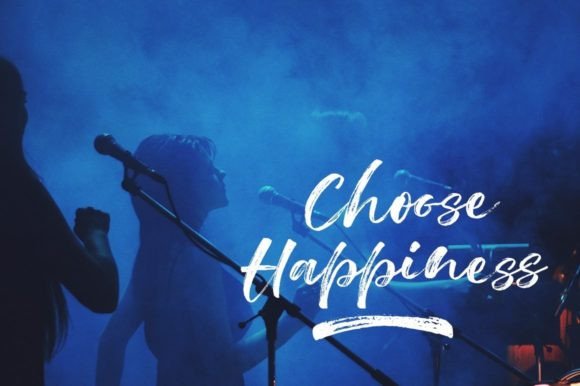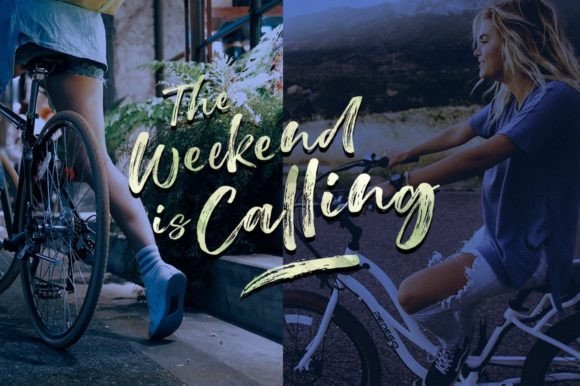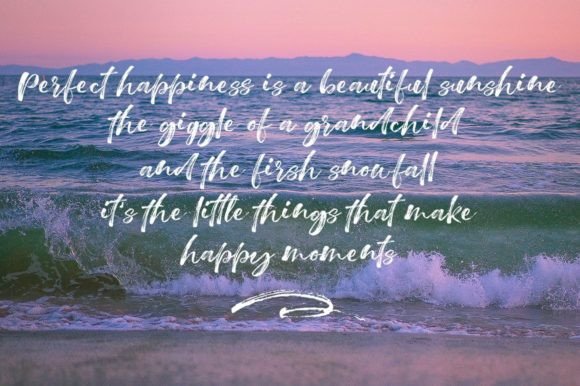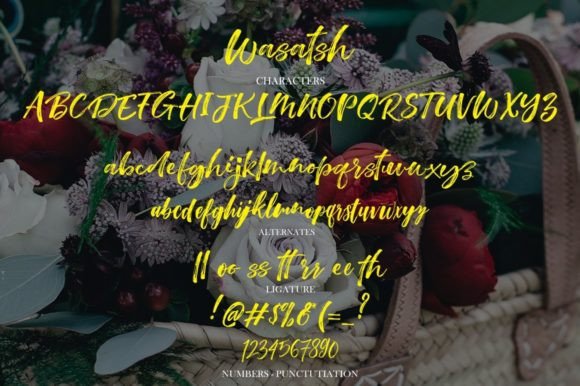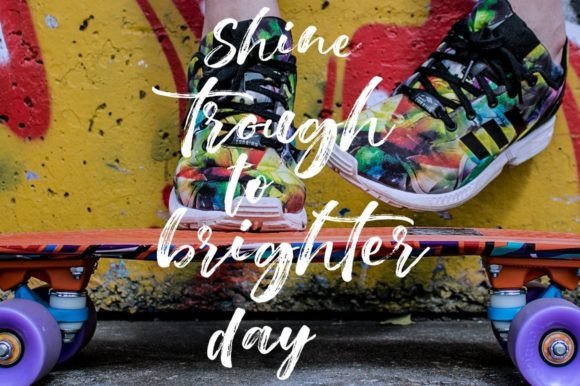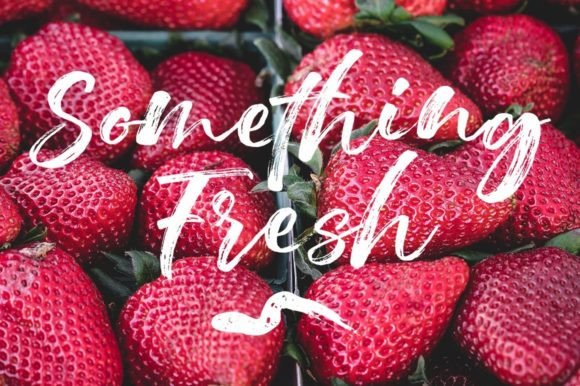
Wasatsh Font
About Wasatsh Font
“Wasatsh” is more than just a font; it’s a cool and modern handwritten brush font designed to bring a contemporary and stylish vibe to your projects. Its casual yet sophisticated appearance makes it a versatile choice for a variety of design applications. Adding “Wasatsh” confidently to your projects promises results that you’ll love.
The cool and modern qualities of “Wasatsh” are immediately apparent in its handwritten brush design. The font carries a sense of fluidity and dynamism, contributing to an overall aesthetic that is both casual and stylish. This makes it an ideal choice for projects that demand a modern and confident touch.
The versatility of “Wasatsh” becomes evident in its adaptability to various design contexts. Whether it’s enhancing the visual appeal of digital graphics, adding a stylish touch to social media posts, or making headlines stand out, this font confidently fits into diverse creative projects.
Imagine it in branding, where “Wasatsh” can contribute to a fresh and contemporary visual identity. Picture it in presentations or on promotional materials, making your message more engaging and dynamic. “Wasatsh” becomes a font that not only looks cool but also adds a modern edge to your designs.
In summary, “Wasatsh” is not just a font; it’s a design asset that confidently brings a cool and modern touch to your creative projects. Let it be the choice for adding a contemporary vibe that you’ll love. With “Wasatsh,” every project becomes an opportunity to showcase the beauty of handwritten brush typography with confidence and style.